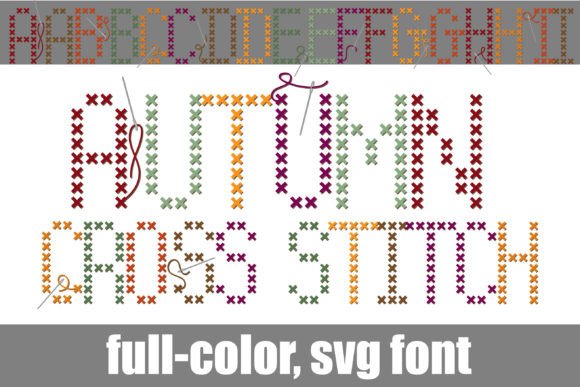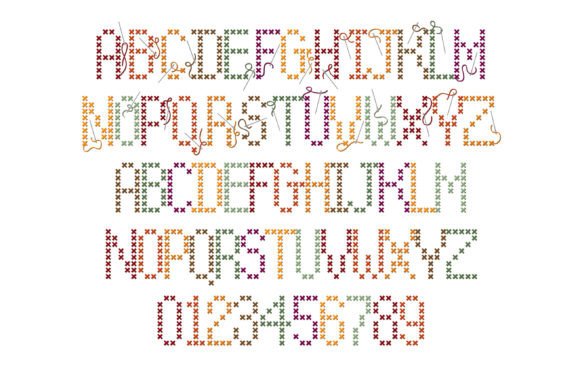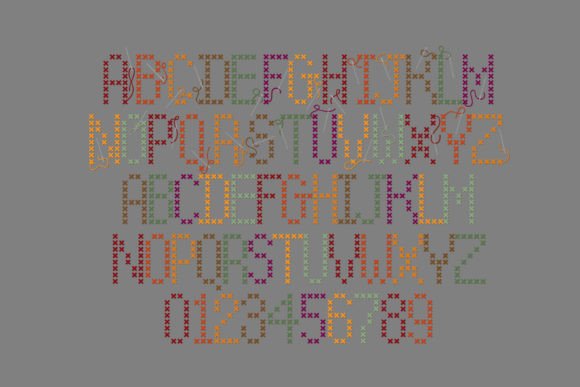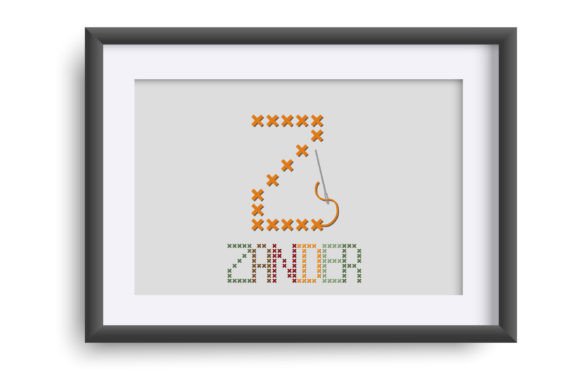
Autumn Cross Stitch Font
About the Autumn Cross Stitch Font
Discover the charm of Autumn Cross Stitch Font. This font is a perfect blend of modern aesthetics and classic appeal. This full-color font features a cross stitch looking font in an autumn color palette, with needles and thread on the uppercase. There is an alt case with additional colors you can access through your system’s character map. This font works best for titles, displays, posters and more. Please note color fonts will show as black in non compatible programs. This font type is compatible with Silhouette Studio.